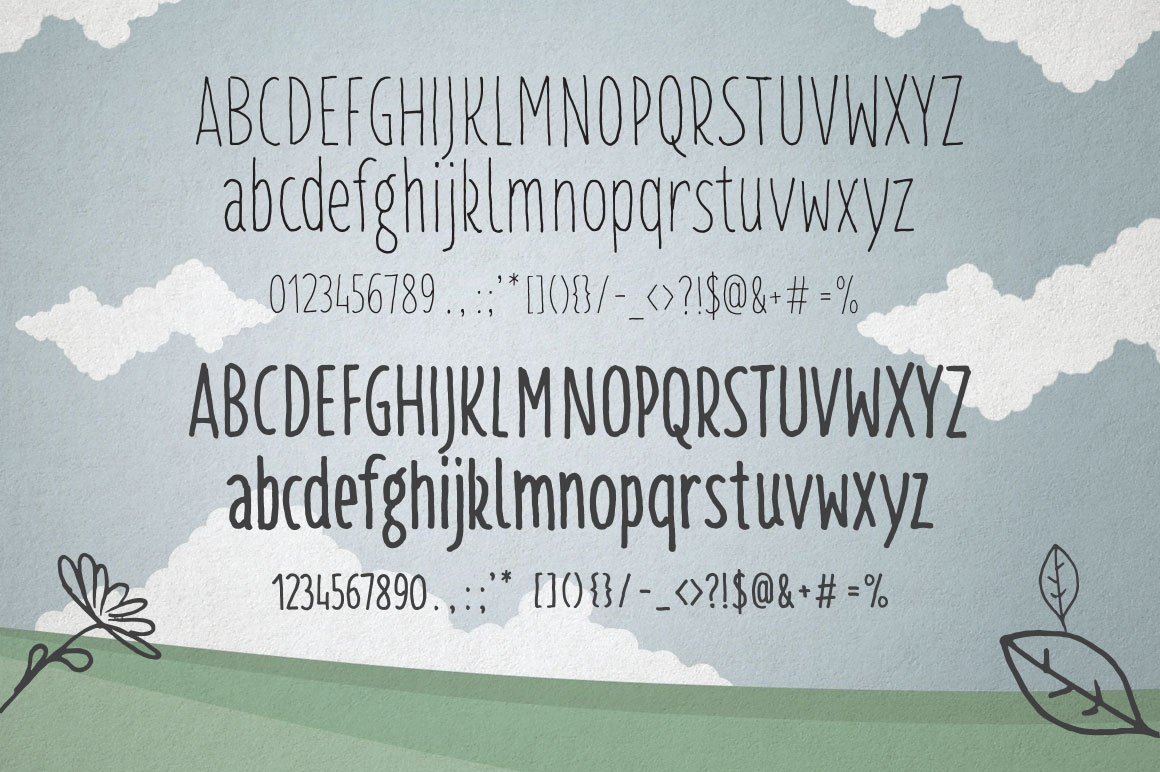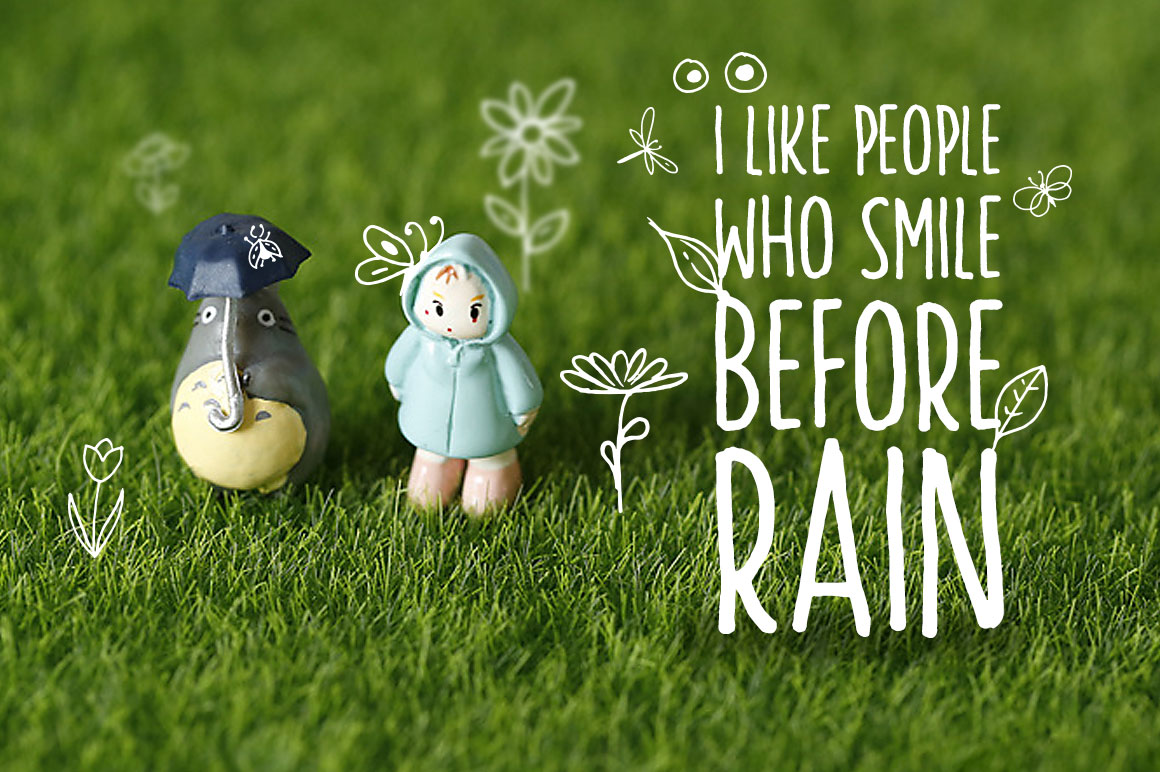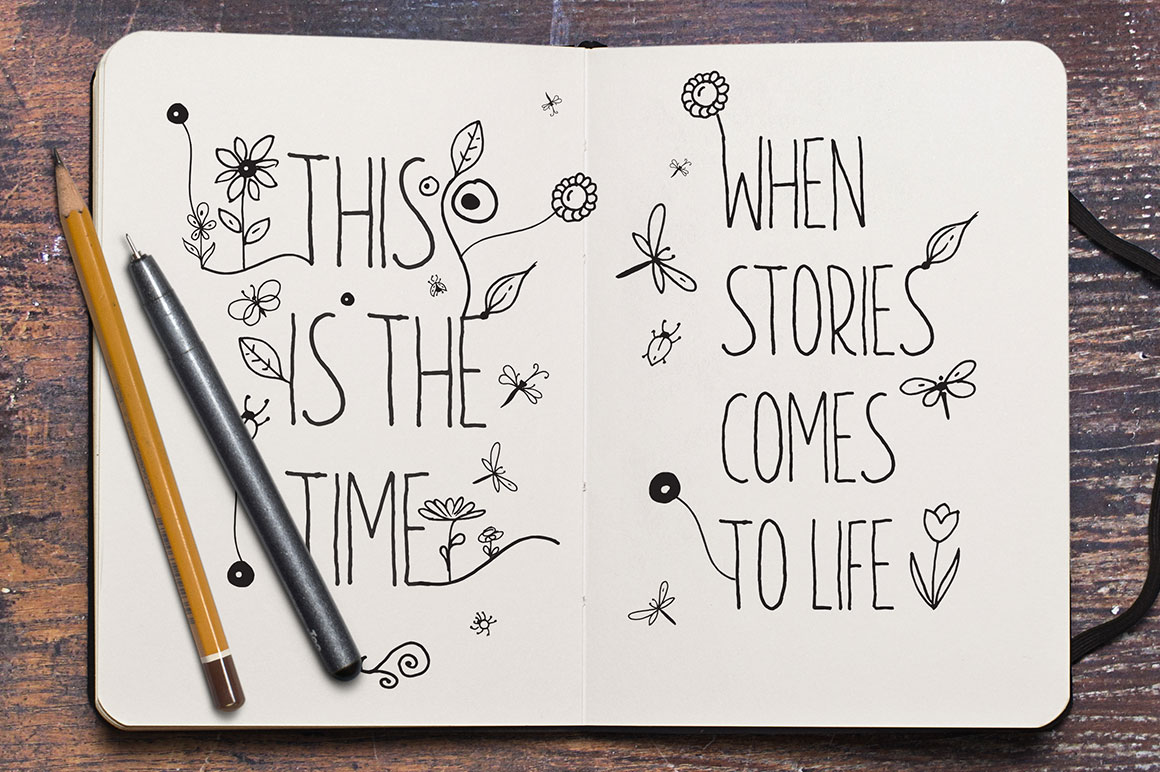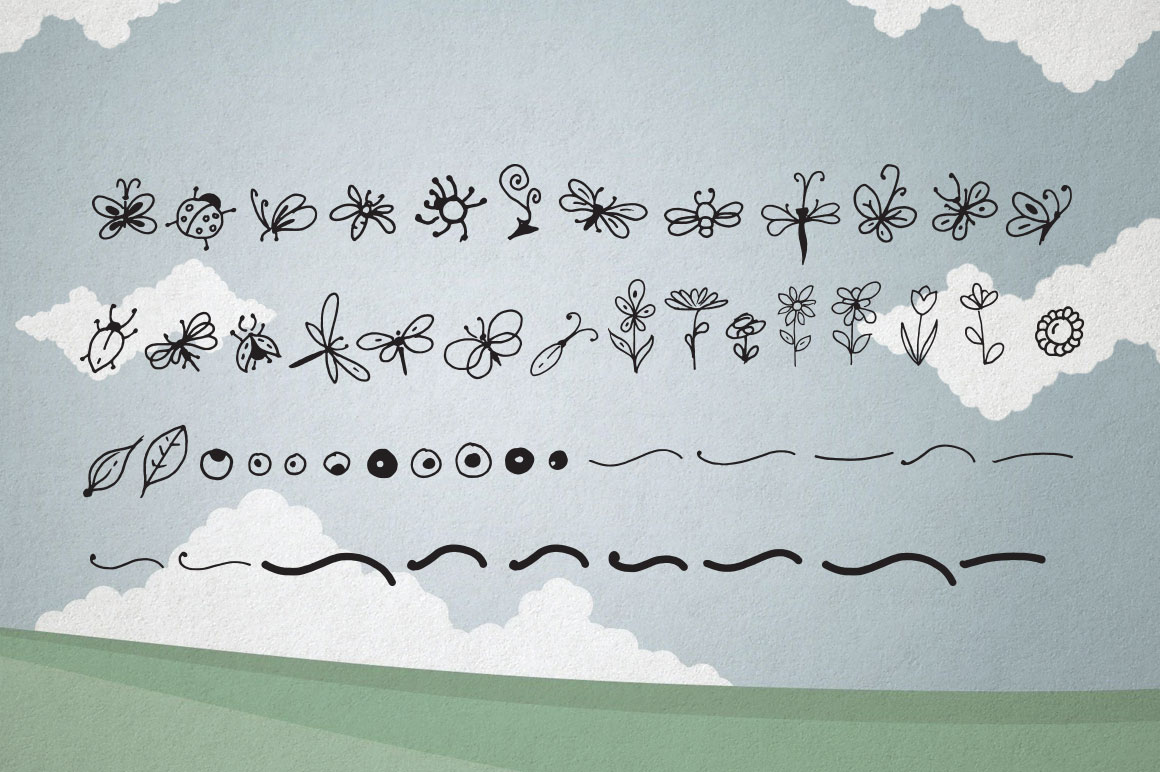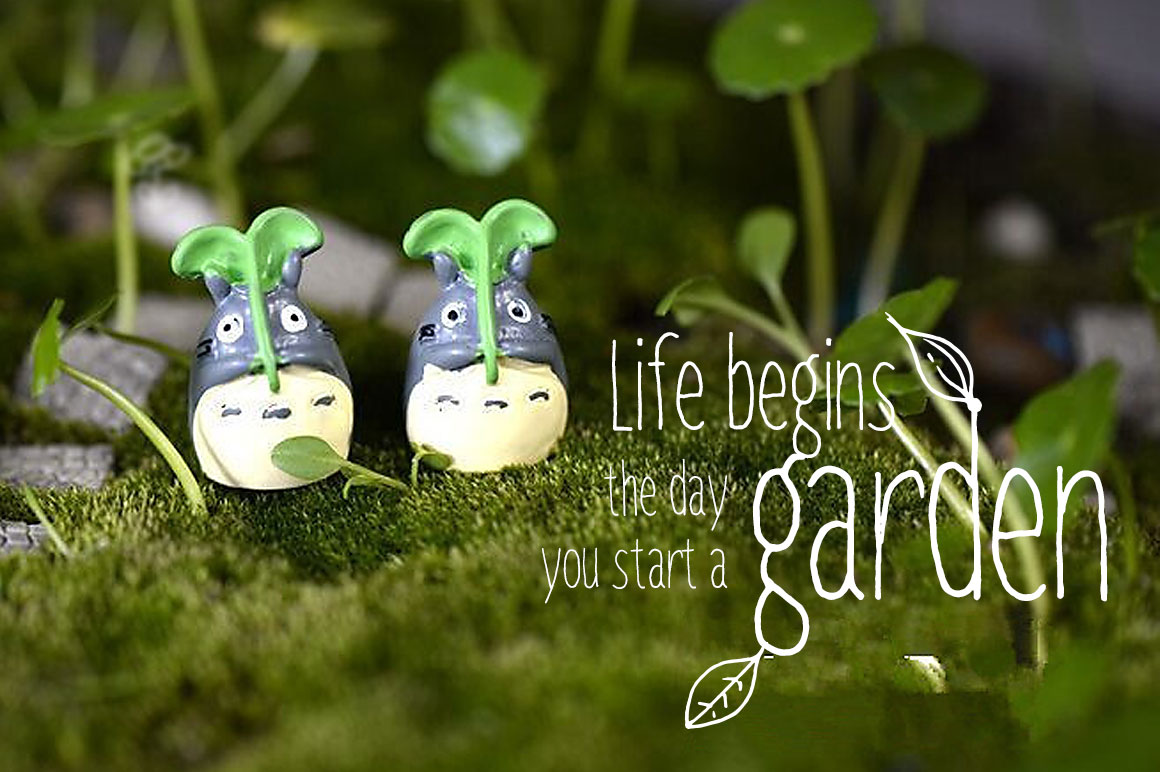
Tall & Tiny Font Duo Font
About Tall & Tiny Font Duo Font
Tall & Tiny are 2 fonts that are best friends. Some would actually call them a duo!
This duo is very playful and will bring you loads of fun when creating your designs.
The Tall & Tiny duo is created by the DesignSomething foundry and was created for the founders son with the purpose to use in a PowerPoint presentation in a school project.
Tall & Tiny comes with exclusive hand-drawn extras. These 52 unique designs work great with both Tall and Tiny and contain things like leaves, insects, bugs, flowers and lines.
The font is extremely suited for fun and playful design. This makes it the perfect kids font.